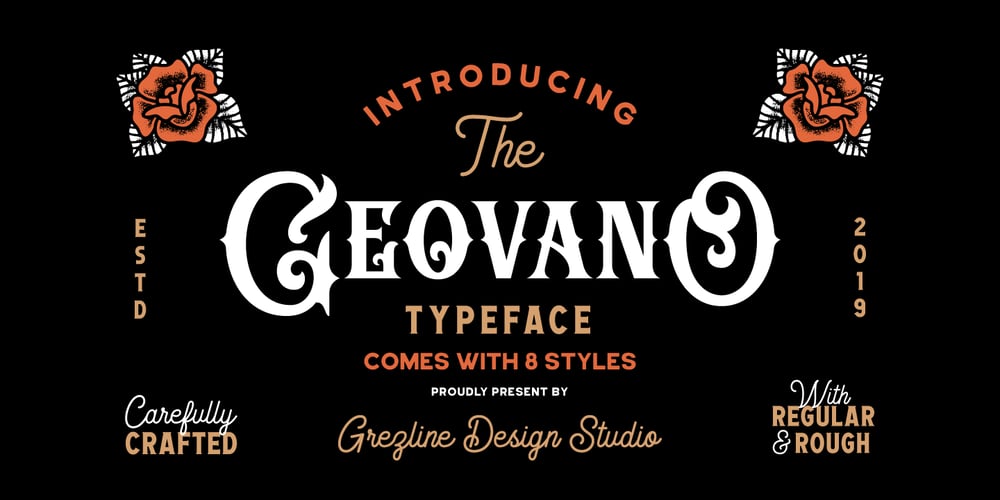
Geovano
Geovano font
Geovano Font Family was designed by Akhmad Reza Fauzi and published by Grezline Studio. Geovano contains 8 styles and family package options. Geovano is a font family which has 4 styles; Display, Script, Serif and Sans Serif. It is heavily inspired by all kind of vintage and oldschool design.Geovano is a font that you can use to make a vintage logo for branding, typography design, magazine or book cover, website header, product packaging, t-shirt design, label poster and many more.Feature :- 4 Styles with rough version- Multilingual Language – Works on PC & Mac- Simple installations- Accessible in the Adobe Illustrator, Adobe Photoshop, Adobe InDesign, even works on Microsoft Word.